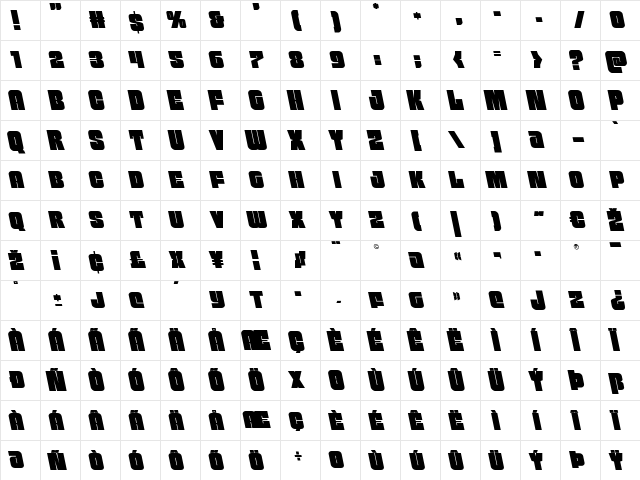
Funk Machine Leftalic Italic
Design Context for Funk Machine Leftalic Typeface
Funk Machine Leftalic trades formality for fun, with bouncy, characterful letterforms that bring warmth and energy to any project. Its italic angle brings a sense of urgency and motion to the letterforms.
Font Pairing: Pairs well with a rounded or humanist sans for body copy, maintaining the friendly tone without relying on Funk Machine Leftalic to carry extended reading.
Pro Tip: Avoid using Funk Machine Leftalic for long passages of text — it works best for headlines, labels, and short calls to action.